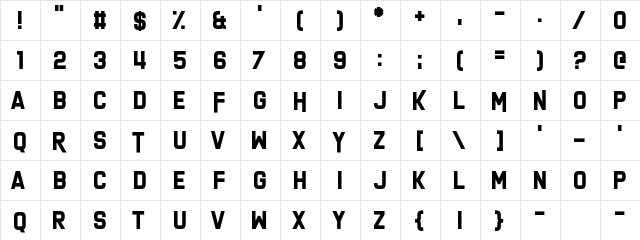
Life Is Okay Regular
| Designer | NAL |
Design Context for Life Is Okay Typeface
Life Is Okay takes a measured approach to typography — its balanced proportions and neutral character make it a reliable workhorse for both digital and print work.